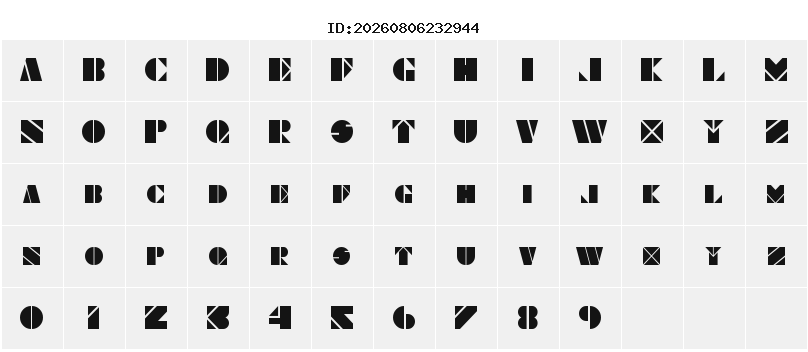
Obese & Square KK Preview
• Font Name: Obese & Square KK
• Designer: koeiekat
• Description: Obese & Square, the name says it all. A minimalist fatty made with as few basic elements as possible. Fit for titling that needs that 'De Stijl' feeling. Capitals,numbers and small capitals only. Only very basic punctuation, no kerning. Maybe later if there are enough requests.
Obese & Square KK.ttf is a modern, elegant sans-serif font designed for ultimate readability and visual harmony. Perfect for branding, headlines, web design, and print materials.